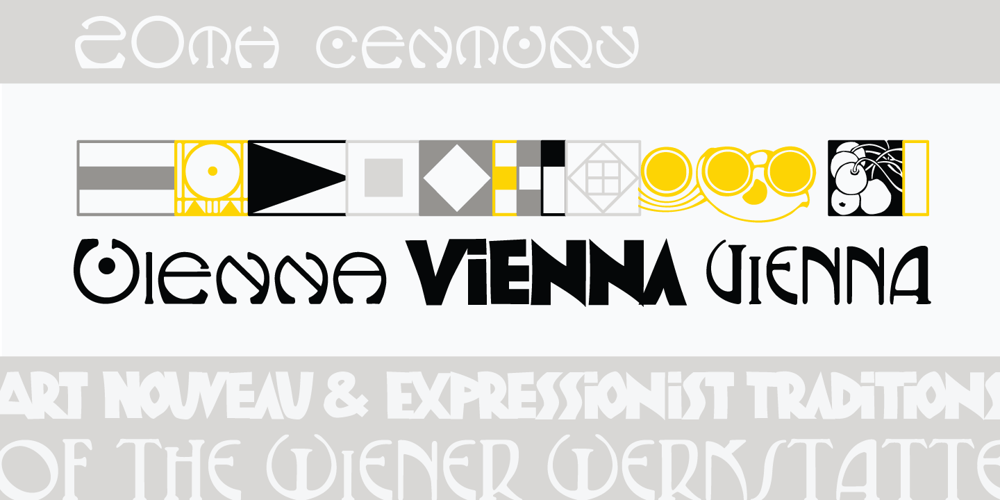
P22 Vienna
P22 Vienna font
P22 Vienna Font Family was designed by Richard Kegler, Denis Kegler and published by P22 Type Foundry. P22 Vienna contains 1 styles and family package options. The Vienna Workshop (Wiener Werkstätte) produced a tremendous variety of art from the turn of the century until the beginning of World War II. This set, which includes three typefaces and a collection of graphic extras, draws on both the Art Nouveau and Expressionist traditions of the Workshop.